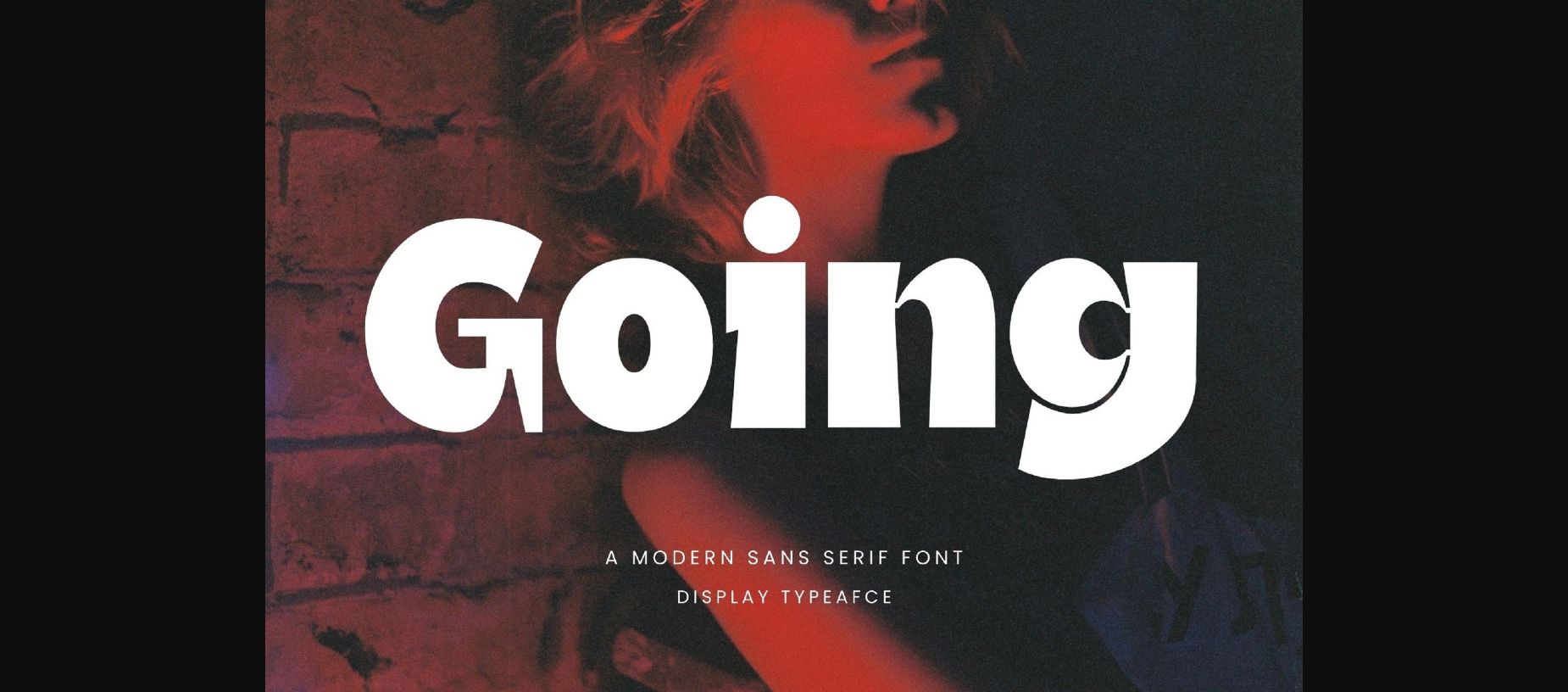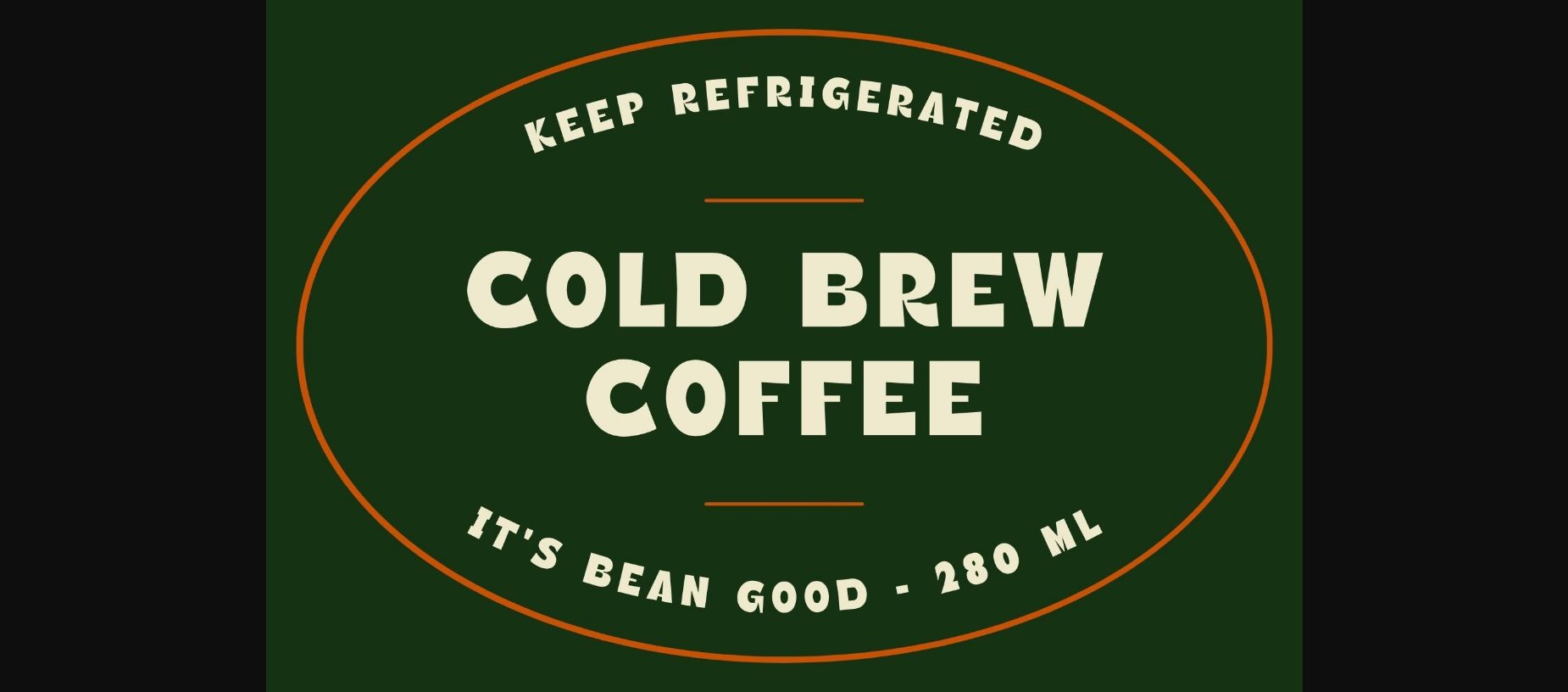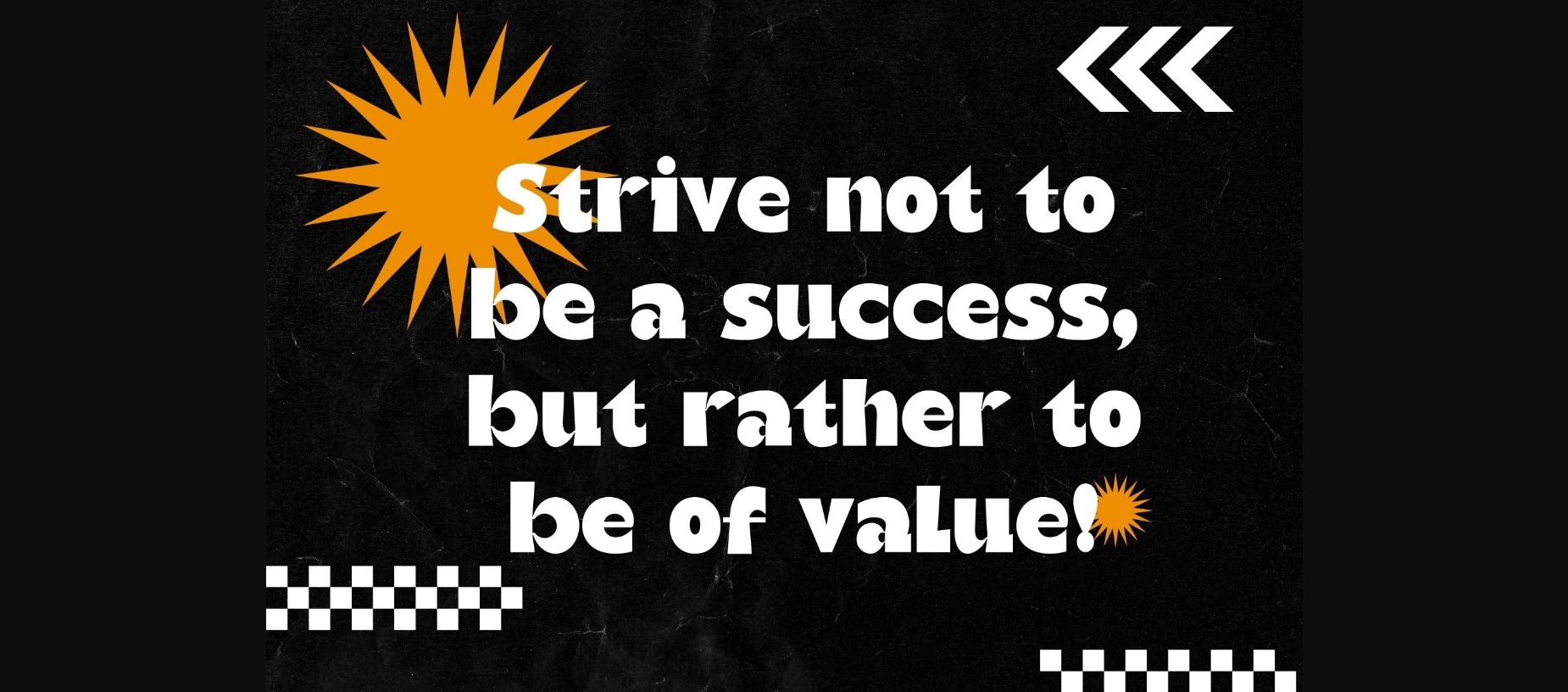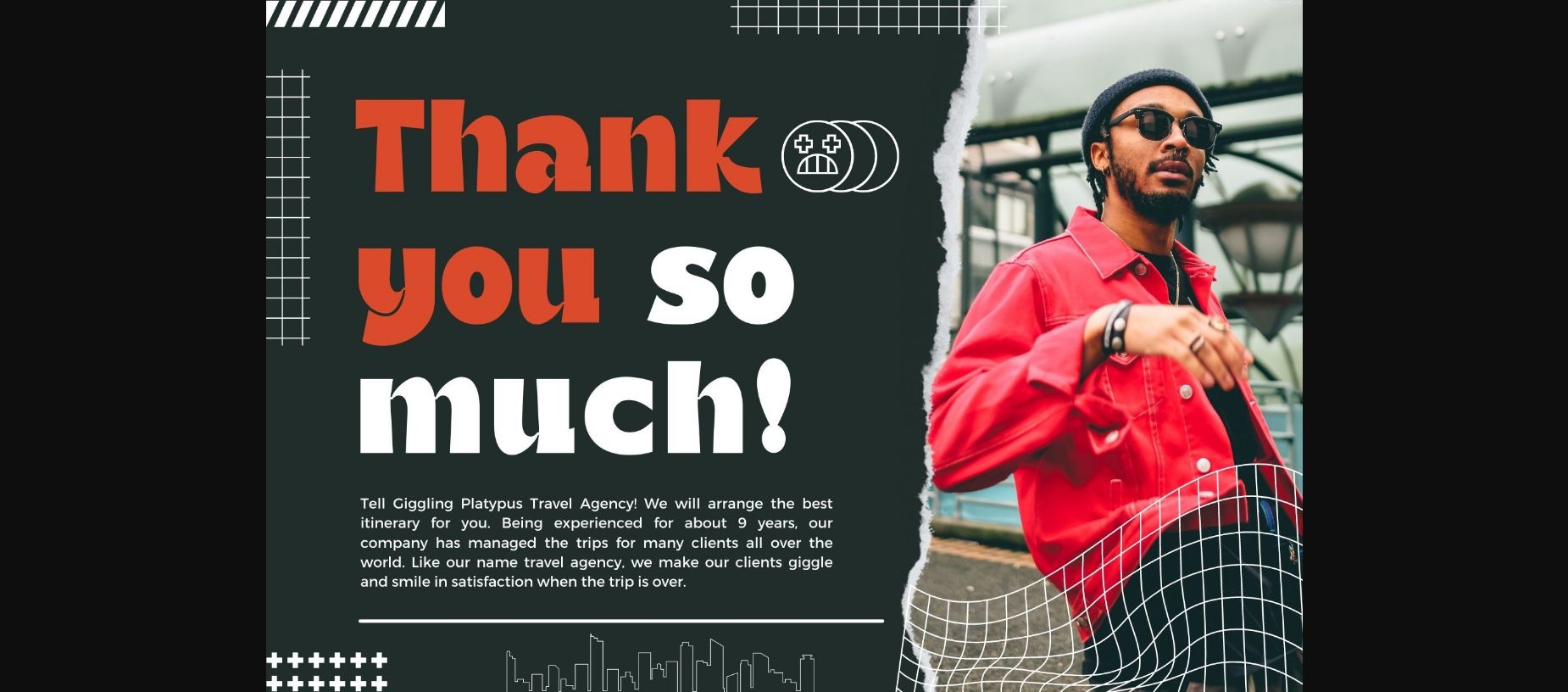
About Going Font
Going is a sleek and modern display sans serif font that exudes simplicity and sophistication. With clean lines and a contemporary design, Going is perfect for creating eye-catching headlines, logos, and branding materials. Its balanced letterforms and versatile nature make it an ideal choice for both digital and print projects, ensuring your content stands out with a touch of elegance.